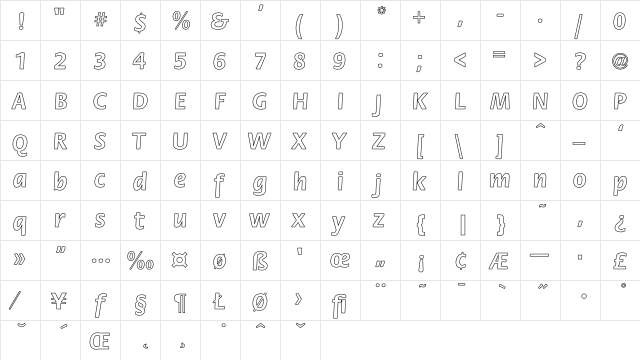
Flora-Bold Hollow Regular
Design Context for Flora-Bold Hollow Typeface
Flora-Bold Hollow is a composed and adaptable typeface that performs quietly and consistently across a wide range of design contexts. The heavy weight commands attention and anchors typographic hierarchies.
Pro Tip: Use Flora-Bold Hollow in both headline and body roles to test its range before committing to a single application.